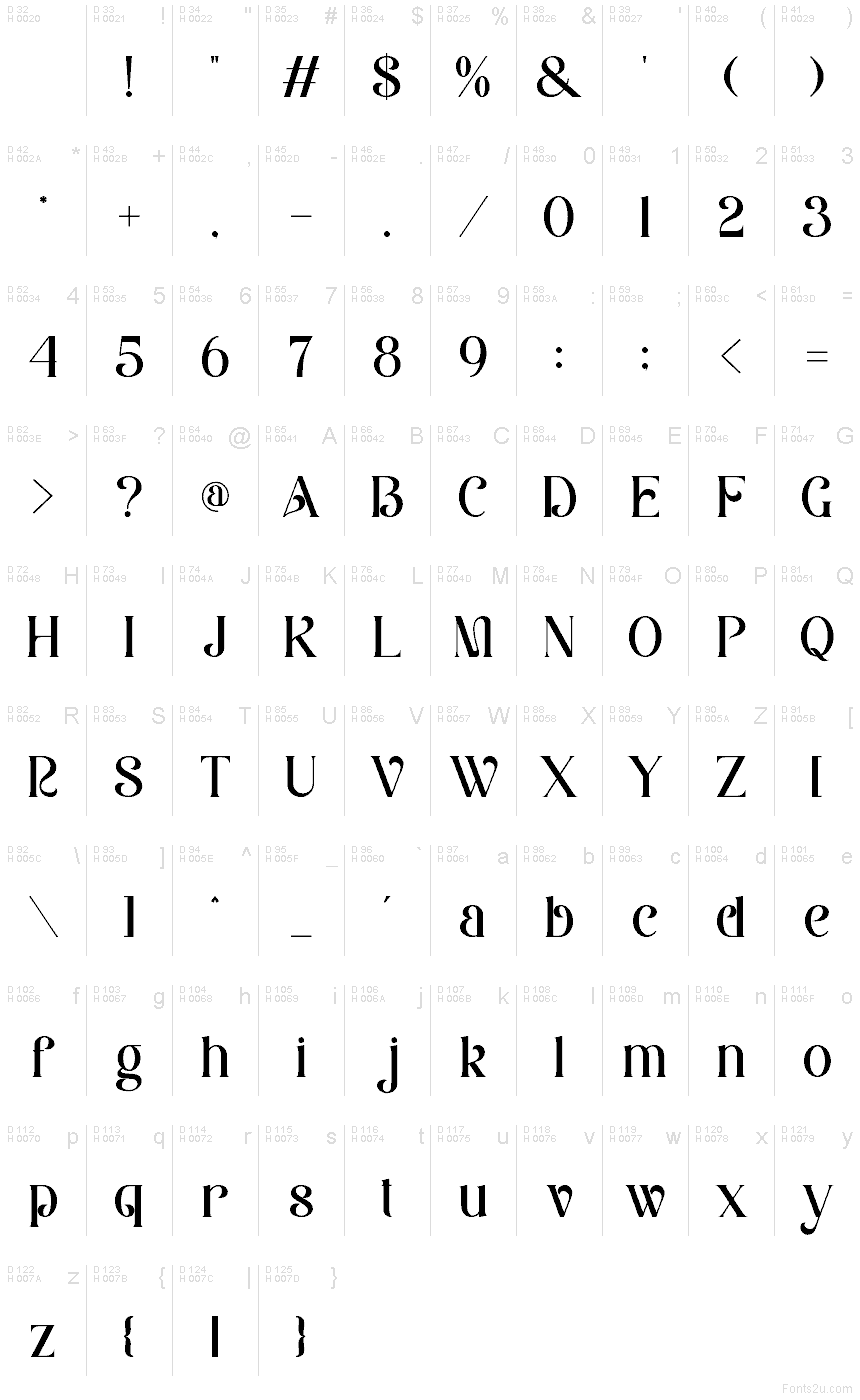
Mostira Regular
Mostira font by Ermedia Studio is a free modern serif display font. Its defining move is the sculpted contrast—lush, inky curves taper into crisp cuts, so letters feel carved rather than drawn. The rhythm is statuesque yet nimble, with flowing bowls and clipped terminals that catch light like polished stone, giving headlines a poised, editorial snap.
Using Mostira, you get instant drama without noise—great for fashion branding, luxury logos, magazine covers, packaging, posters, and high-end invitations. The spacing holds together at large sizes, letting those ribbon-like strokes breathe while staying readable. Pair this free font with a quiet geometric sans for body copy, and keep Mostira for bold titles or short phrases to preserve its sculptural impact.